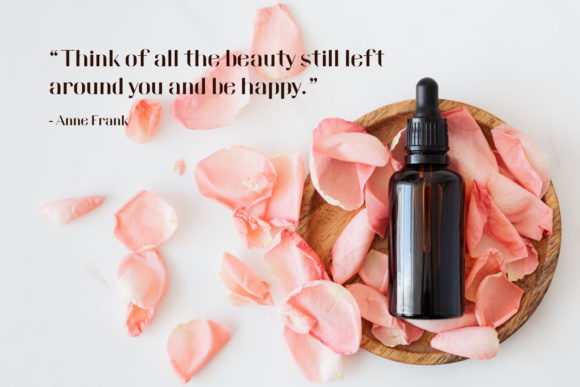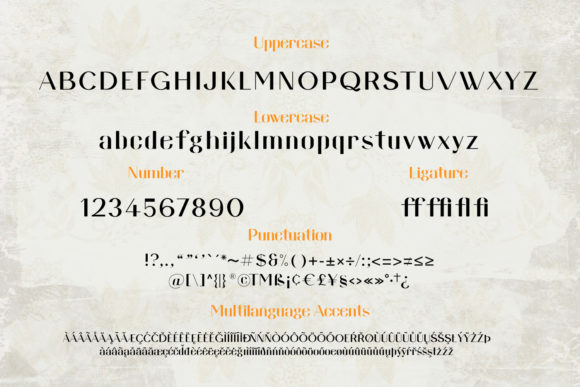
Discover the Beauty of Domestika Font: Elevate Your Designs with its Versatile Style
Are you a designer, crafty DIY enthusiast, or simply someone who appreciates beautiful typography? Look no further than the stunning Domestika font. This gorgeous sans serif font has captured the hearts of many with its incredibly versatile style, making it perfect for a wide range of creative projects. In this article, we’ll dive into the world of Domestika font, exploring its features, uses, and benefits, as well as provide tips on how to make the most of this beautiful typeface.
What is Domestika Font?
Domestika font is a beautiful sans serif font that boasts a clean, modern aesthetic. Its sleek lines, subtle curves, and balanced proportions make it an excellent choice for a variety of design applications. Whether you’re creating wedding invitations, social media posts, or stationery art, Domestika font is sure to impress.
Key Features of Domestika Font
- Versatile style: Domestika font is incredibly versatile, making it suitable for a wide range of design projects, from formal to informal.
- Clean and modern aesthetic: The font’s sleek lines and subtle curves give it a contemporary feel that’s perfect for modern designs.
- Easy to read: Domestika font is highly legible, making it ideal for body text, headings, and titles.
- Highly customizable: The font comes in various weights and styles, allowing you to experiment with different looks and feels.
Uses of Domestika Font
Domestika font is perfect for a variety of creative projects, including:
- Wedding invitations: Create stunning wedding invitations that set the tone for a beautiful and memorable day.
- Stationery art: Add a touch of elegance to your stationery with Domestika font’s beautiful and versatile style.
- Social media posts: Make your social media posts stand out with Domestika font’s clean and modern aesthetic.
- Branding and logos: Use Domestika font to create a strong brand identity that exudes professionalism and style.
- Packaging design: Add a touch of sophistication to your packaging design with Domestika font’s versatile style.
Benefits of Using Domestika Font
So, why choose Domestika font for your design projects? Here are just a few benefits:
- Unique and distinctive look: Domestika font’s beautiful sans serif design sets it apart from other fonts, giving your designs a unique and distinctive look.
- Highly versatile: The font’s versatility makes it suitable for a wide range of design applications, from formal to informal.
Tips for Using Domestika Font
To get the most out of Domestika font, here are a few tips:
- Experiment with different weights and styles: Domestika font comes in various weights and styles, so don’t be afraid to experiment and find the perfect look for your design.
- Pair with other fonts: Domestika font pairs well with other fonts, so try combining it with other typefaces to create a unique and interesting look.
- Use it consistently: To create a strong brand identity, use Domestika font consistently across all your design materials.
| Author | dinnergraph |
In conclusion, Domestika font is a beautiful sans serif font that’s perfect for designers, crafty DIY enthusiasts, and anyone who appreciates beautiful typography. Its versatile style, clean and modern aesthetic, and ease of use make it an excellent choice for a wide range of creative projects. Whether you’re creating wedding invitations, social media posts, or stationery art, Domestika font is sure to impress. So why not give it a try and see the difference it can make in your designs?